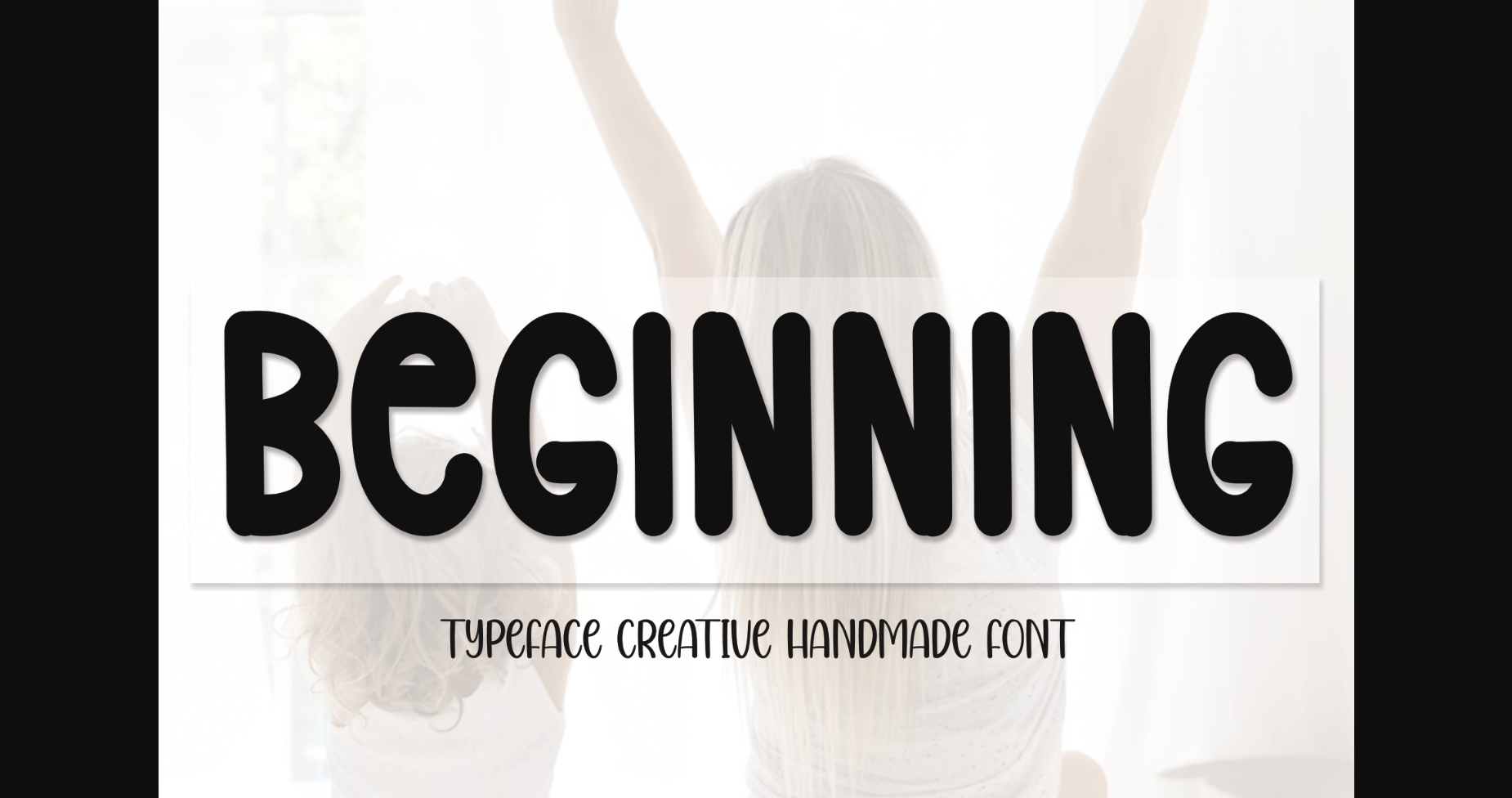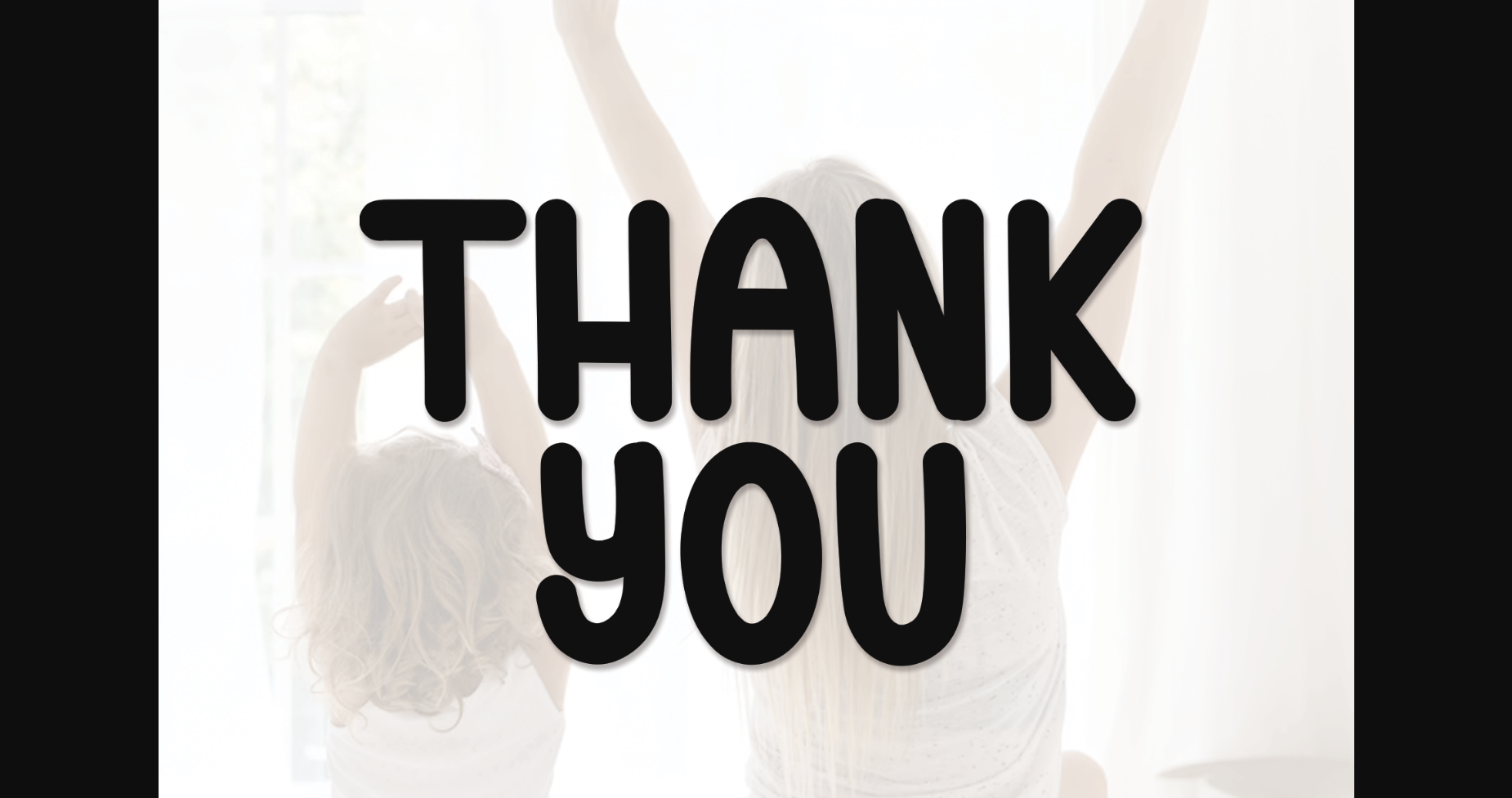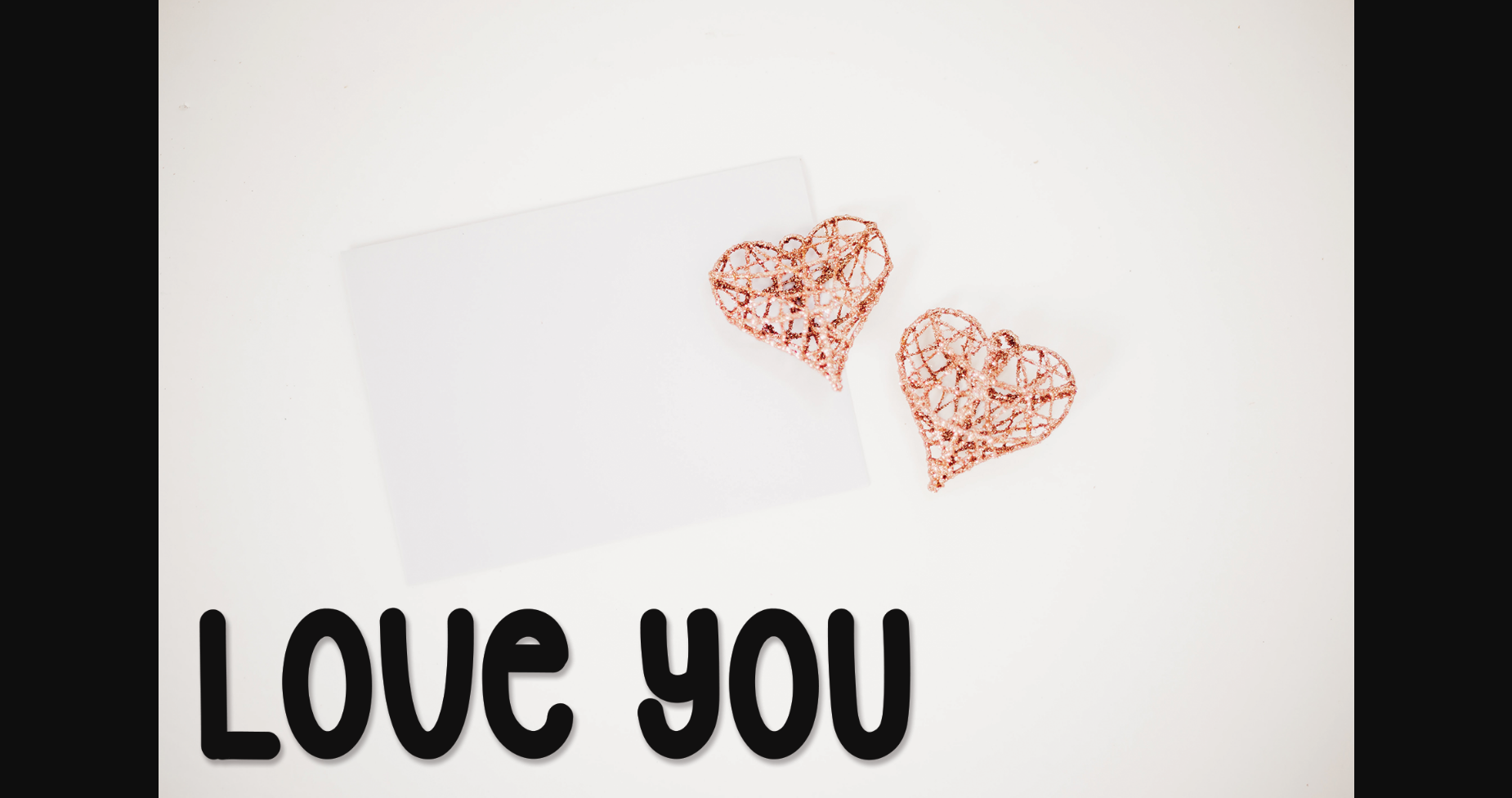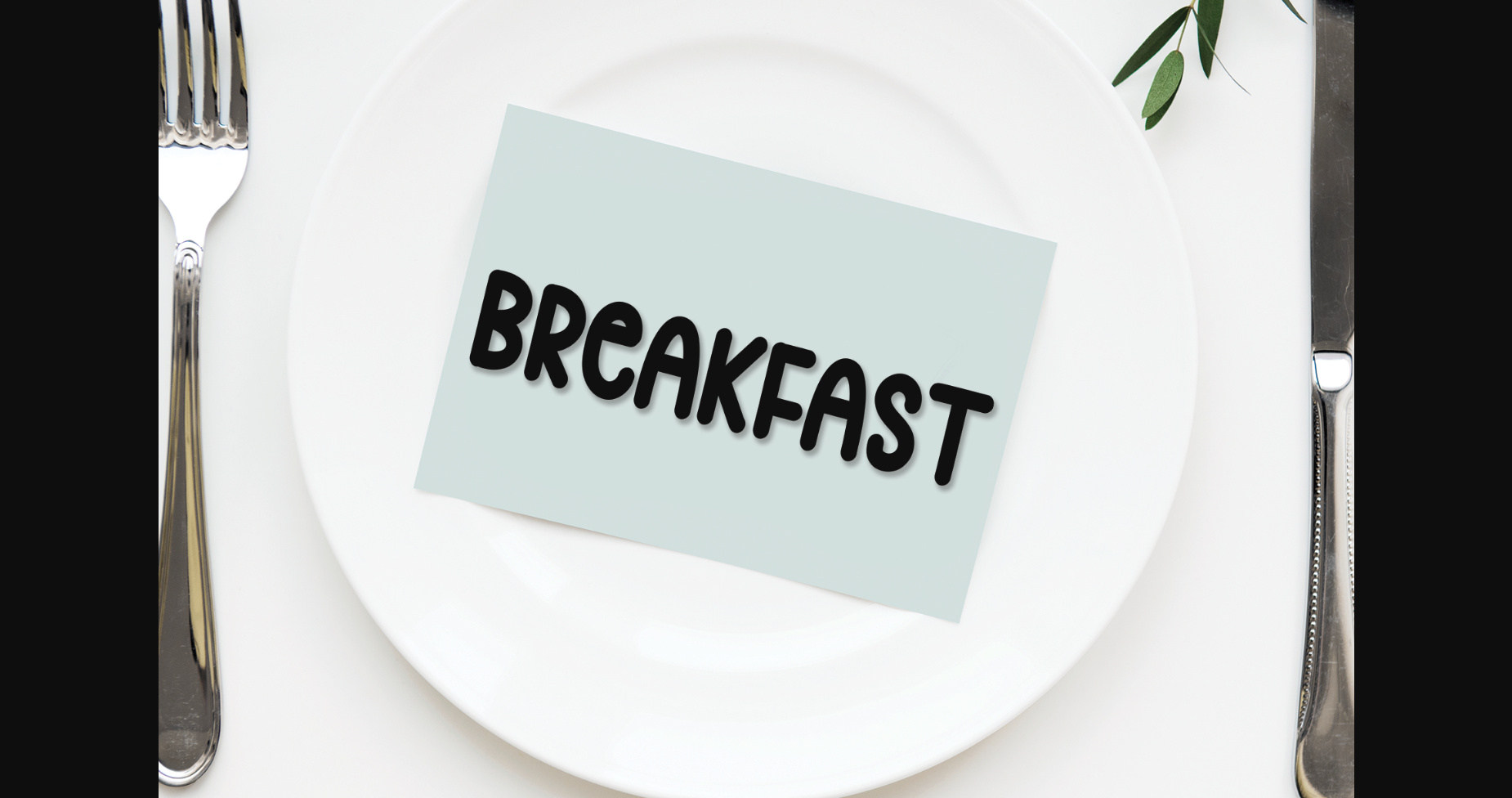
About Beginning Font
Beginning is the perfect font for wall displays, wedding invitations, social media post logos, advertisements, product packaging, product designs, labels, photography, watermarks, invitations, stationery, and any project that requires a bold touch.